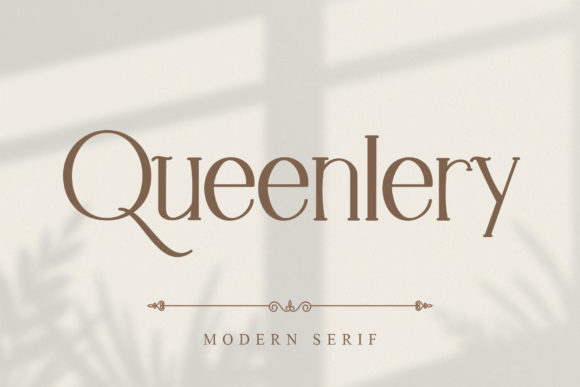
Unleash your creativity and embrace the captivating charm of Queenlery Font, an exquisite serif font family crafted to leave an unforgettable impression. Immerse yourself in the world of visual delight as you discover the timeless elegance and delicate beauty of Queenlery.
With its refined curves and graceful strokes, Queenlery Font exudes an air of sophistication that is sure to capture hearts. Dive into a world of endless possibilities, where every letter dances across the page, creating a symphony of visual harmony.
Express your individuality and let your designs shine with Queenlery Font. Whether you're crafting heartfelt wedding invitations, designing enchanting stationary art, or creating captivating social media posts, Queenlery Font will elevate your work to new heights of artistry.
Indulge in the versatility of Queenlery Font, effortlessly adaptable to a myriad of creative endeavors. Its timeless charm lends itself perfectly to branding projects, logo designs, and website creations, adding a touch of elegance that resonates with audiences.
With Queenlery Font, you hold the key to unlocking a world of visual enchantment. Embrace the beauty of typography and elevate your designs to new levels of excellence. Experience the magic of Queenlery Font today and let your creativity soar!